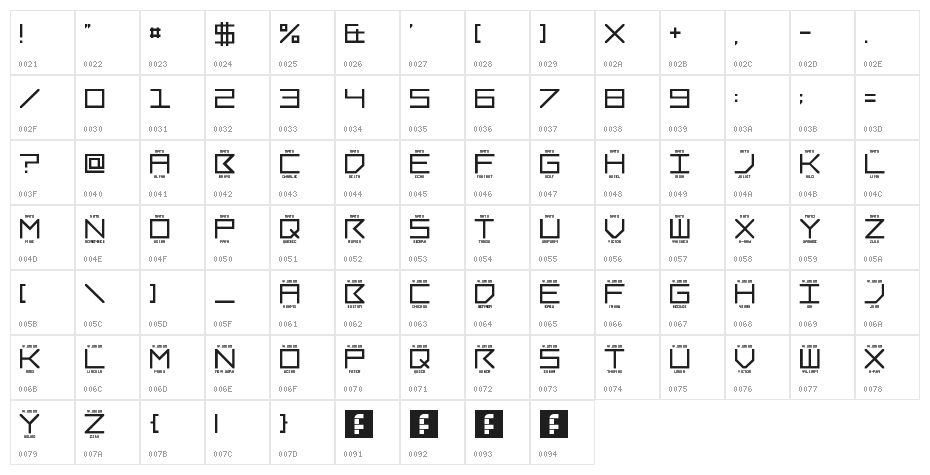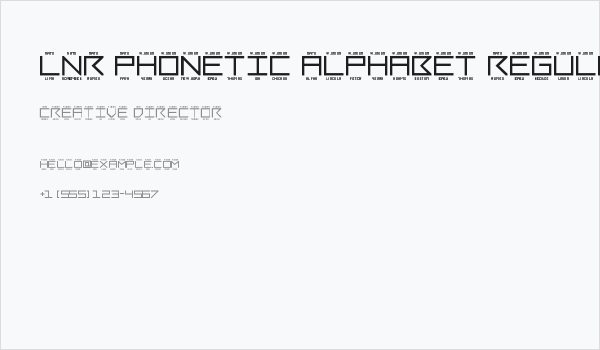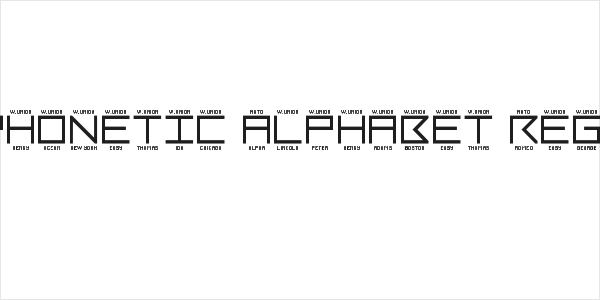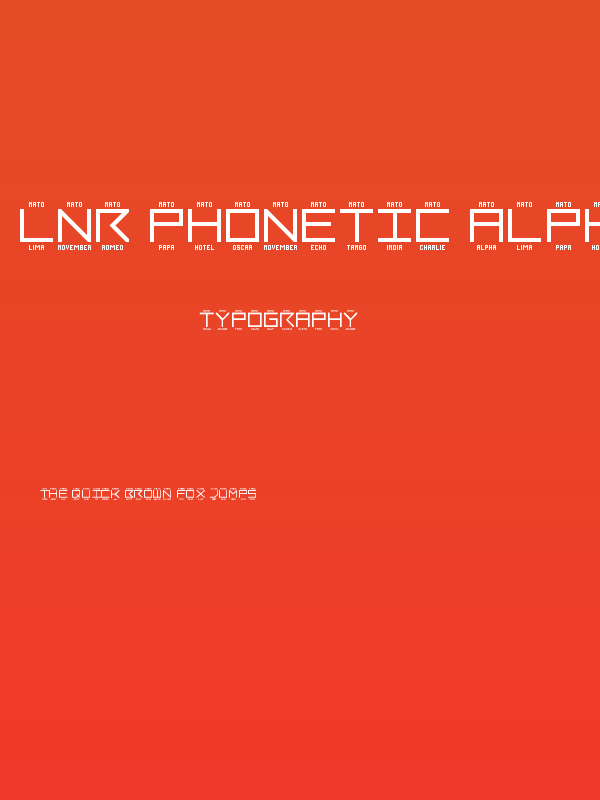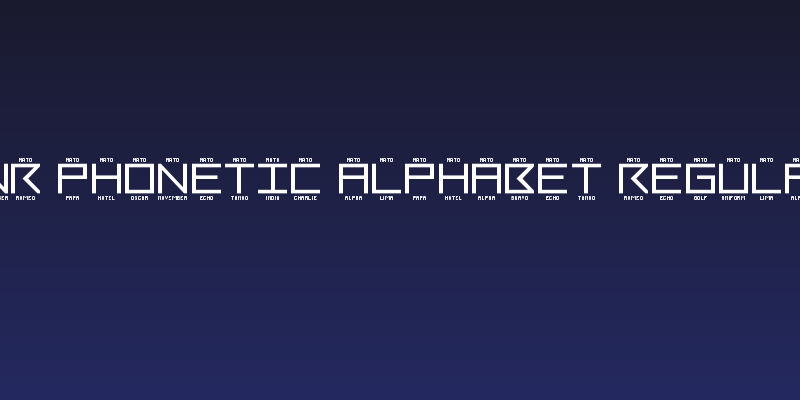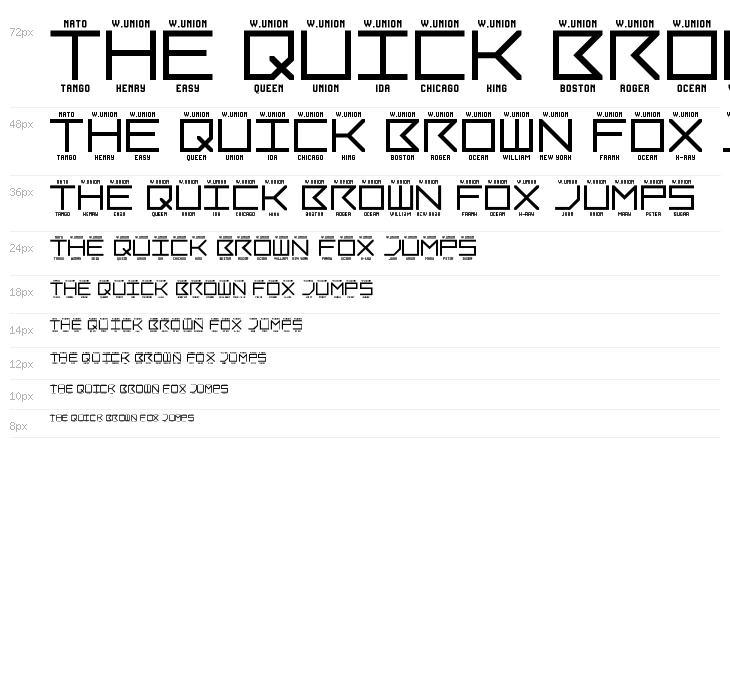
LNR Phonetic Alphabet Regular Font
LNR Phonetic Alphabet Regular Description
This font features a bold, geometric design with a strong emphasis on angular shapes and straight lines. Each character is constructed with uniform thickness, creating a cohesive and structured appearance. The font is reminiscent of military or industrial styles, with a modern twist. Its uppercase letters are particularly striking, with sharp edges and a sense of precision. The numerals and special characters maintain the same geometric consistency, making the font versatile for various applications. The overall design is clean and impactful, suitable for projects that require a strong visual presence.
| Proposed Projects | This font is perfect for branding, posters, signage, and any project that requires a bold and modern aesthetic. Its structured design makes it suitable for technology or industrial-themed projects. |